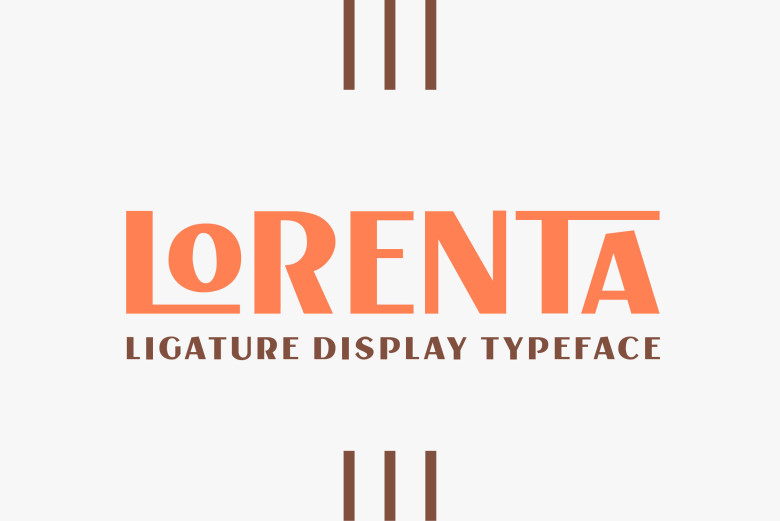
Lorenta Font
Lorenta attractive and chic, Lorenta is an almost sans-serif font. Its clean, minimalist lines and subtle, stylish curves reflect a sense of modern sophistication that is just right for adding a little professionalism to your branding or typography.
Lorenta Sans Serif Display Font